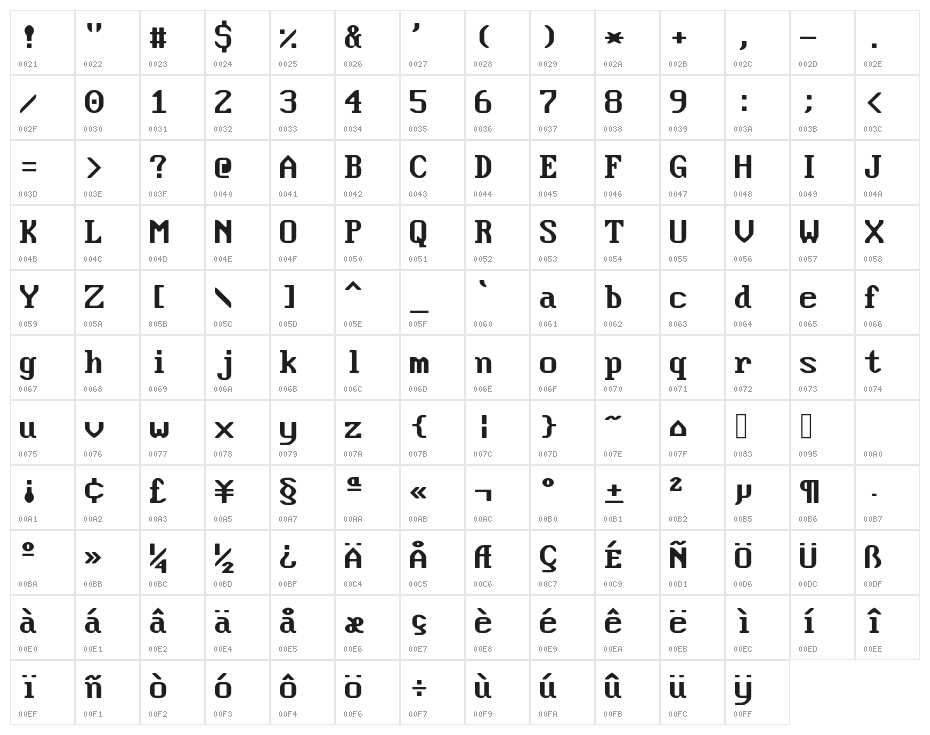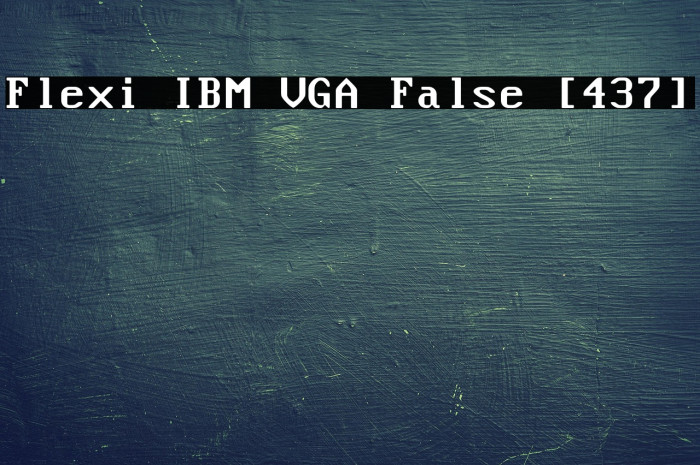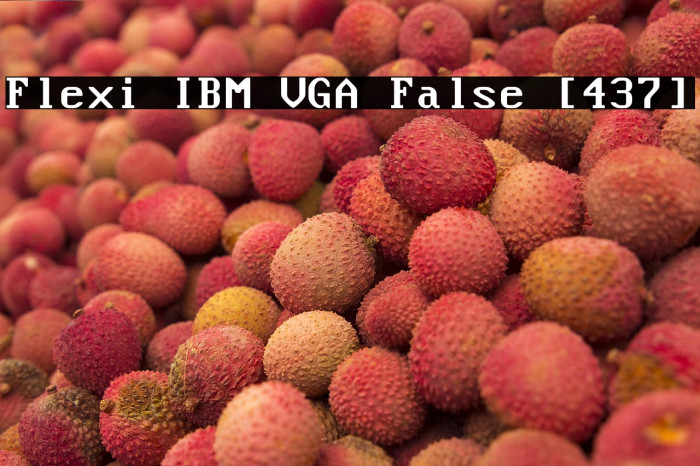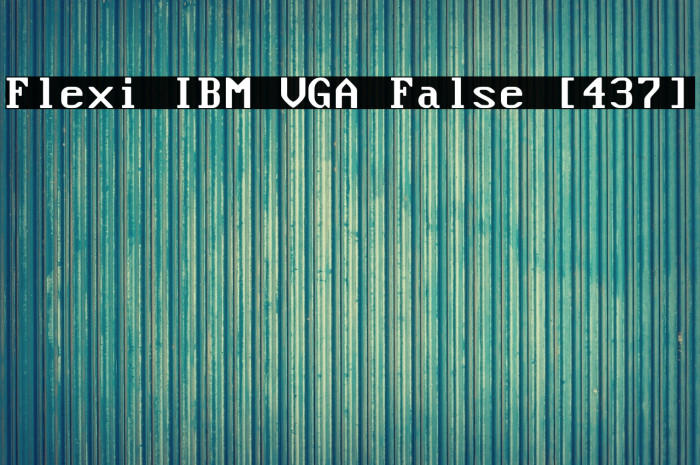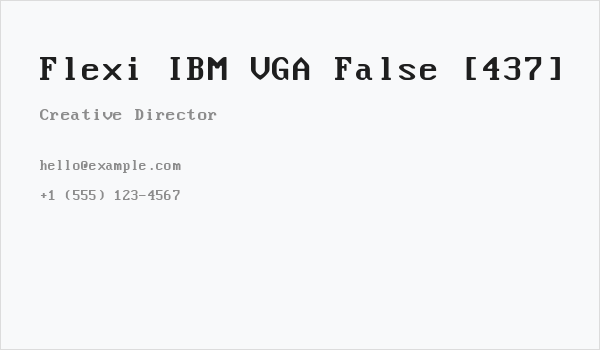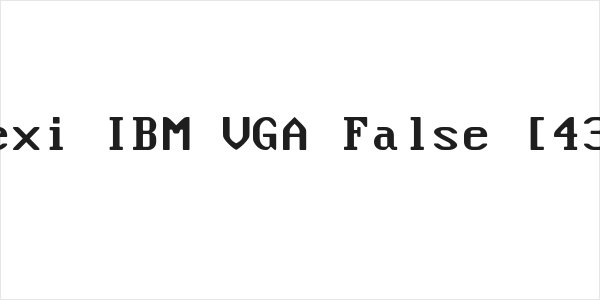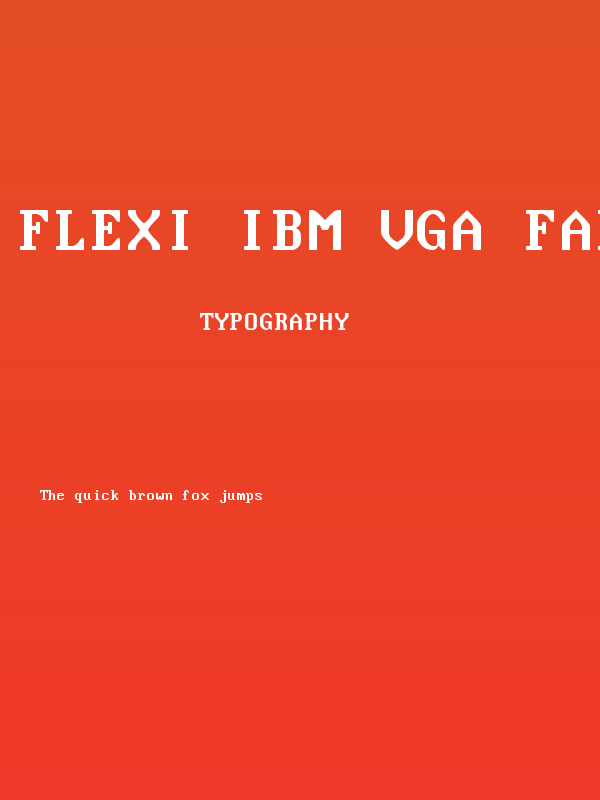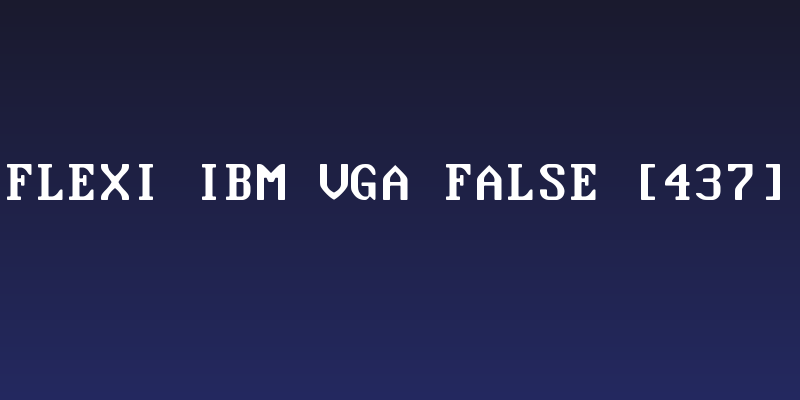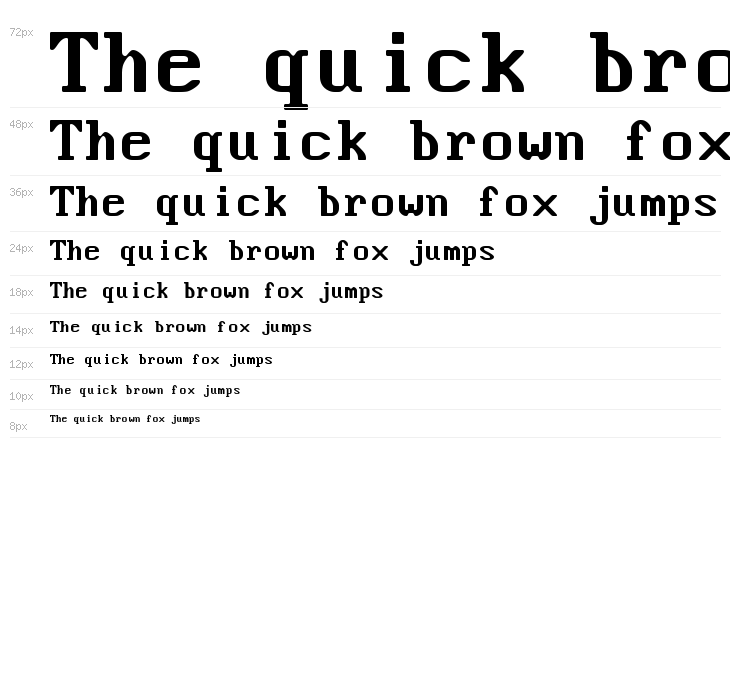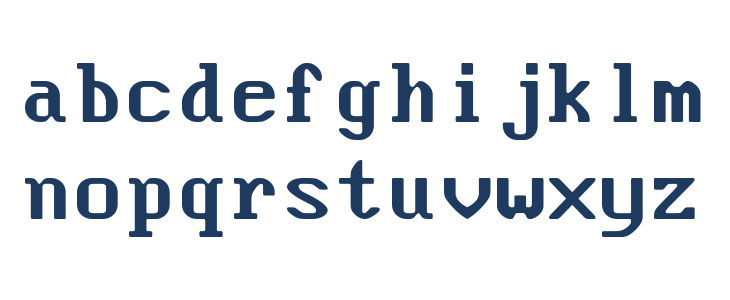
Flexi IBM VGA False [437] Font
Flexi IBM VGA False [437] Description
This font features a bold, monospaced style with a vintage computer aesthetic reminiscent of early digital displays. The characters are uniformly spaced, giving it a structured and mechanical appearance. The uppercase letters have a distinct, blocky form, while the lowercase letters maintain a consistent height and width, enhancing readability. The numerals are clear and straightforward, matching the overall geometric design. Special characters are well-defined, adding to the font's utility in various contexts. The strokes are consistent in thickness, providing a uniform look across all characters.
| Use Case | Headlines, Coding, Digital displays |
| Proposed Projects | Ideal for retro-themed designs, coding interfaces, and digital art projects. |